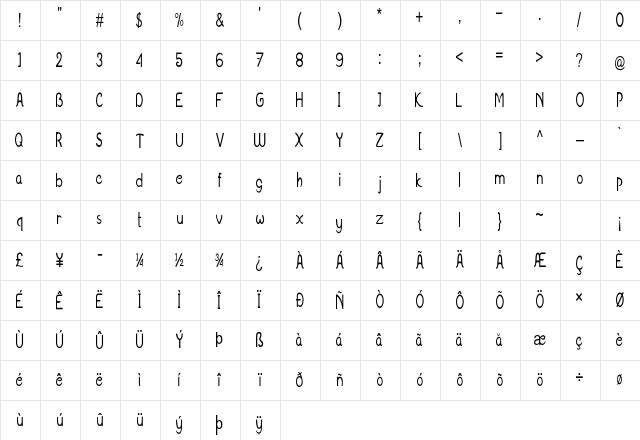
Bernaise Condensed Regular Free Font
Bernaise Condensed Regular
Style: Condensed Regular
Bernaise Family
Bernaise Condensed Regular
Complete Bernaise Condensed Regular glyph index. Displaying only characters natively supported by Bernaise Condensed Regular font.
Design Context for Bernaise
Bernaise is a composed and adaptable typeface that performs quietly and consistently across a wide range of design contexts. Its narrow stance lets it pack a punch even in space-constrained designs.